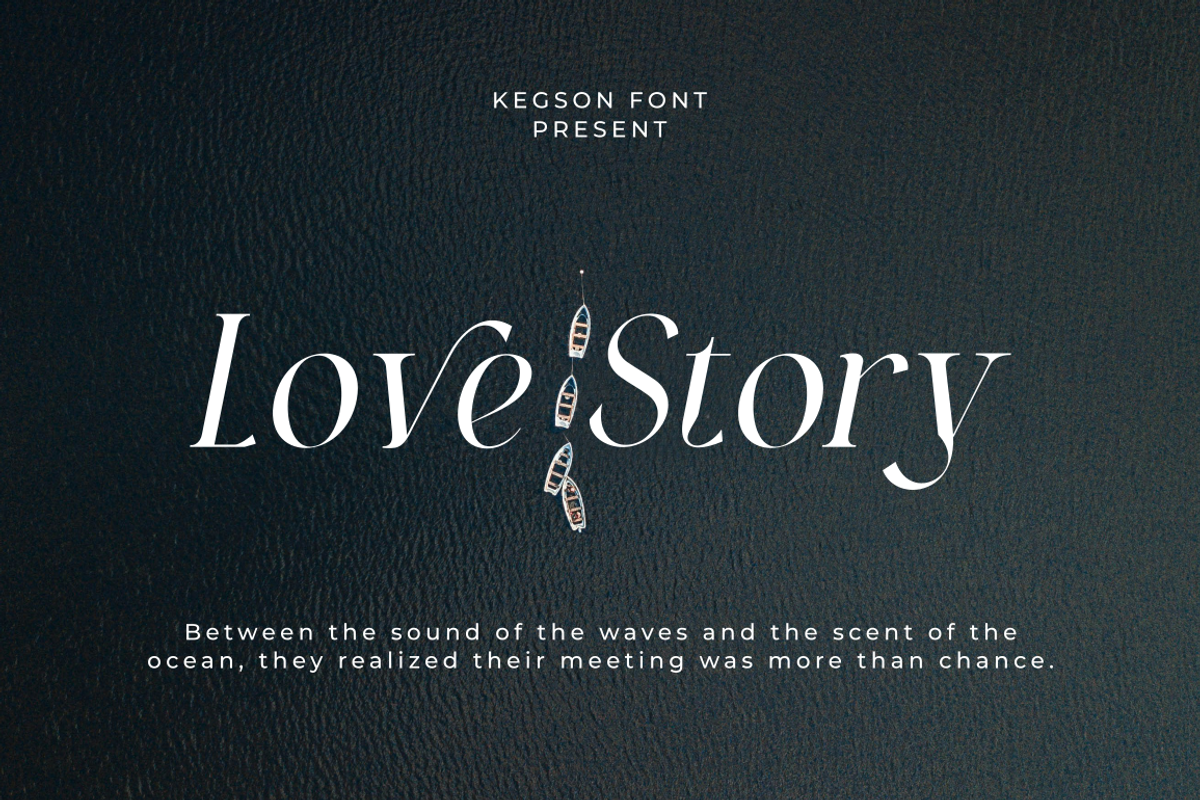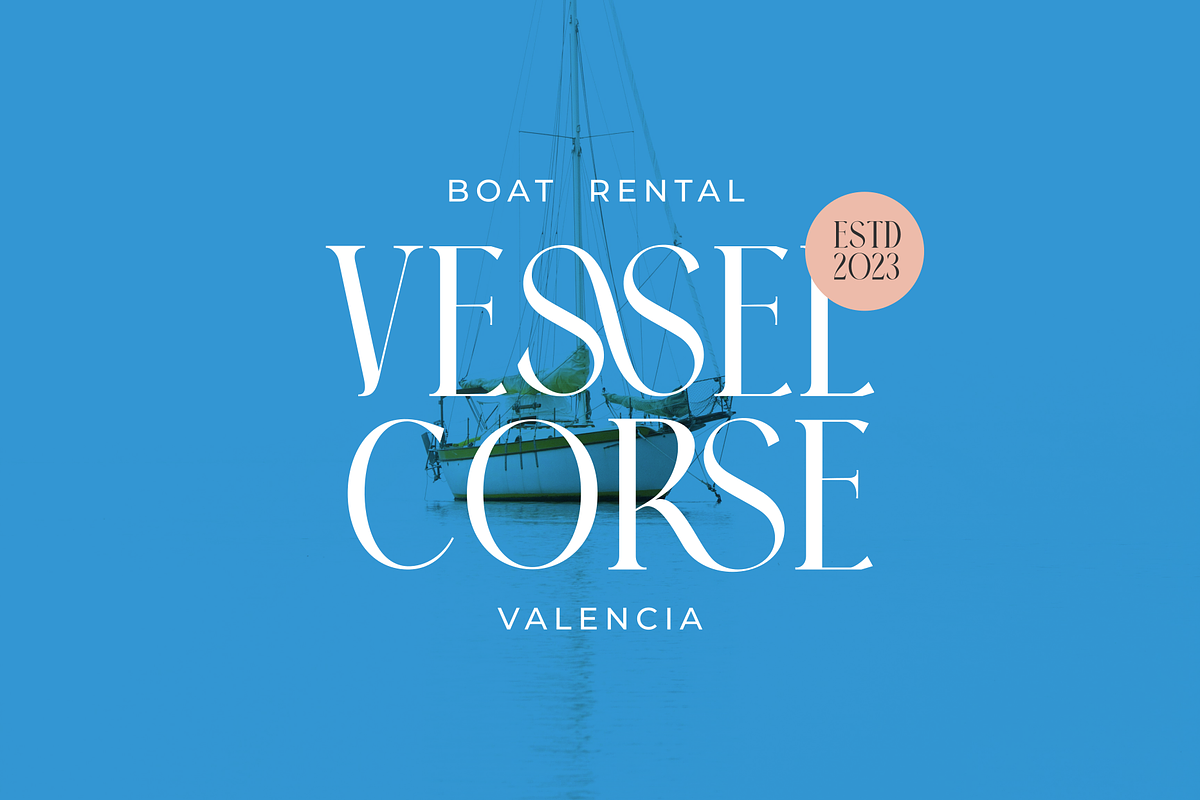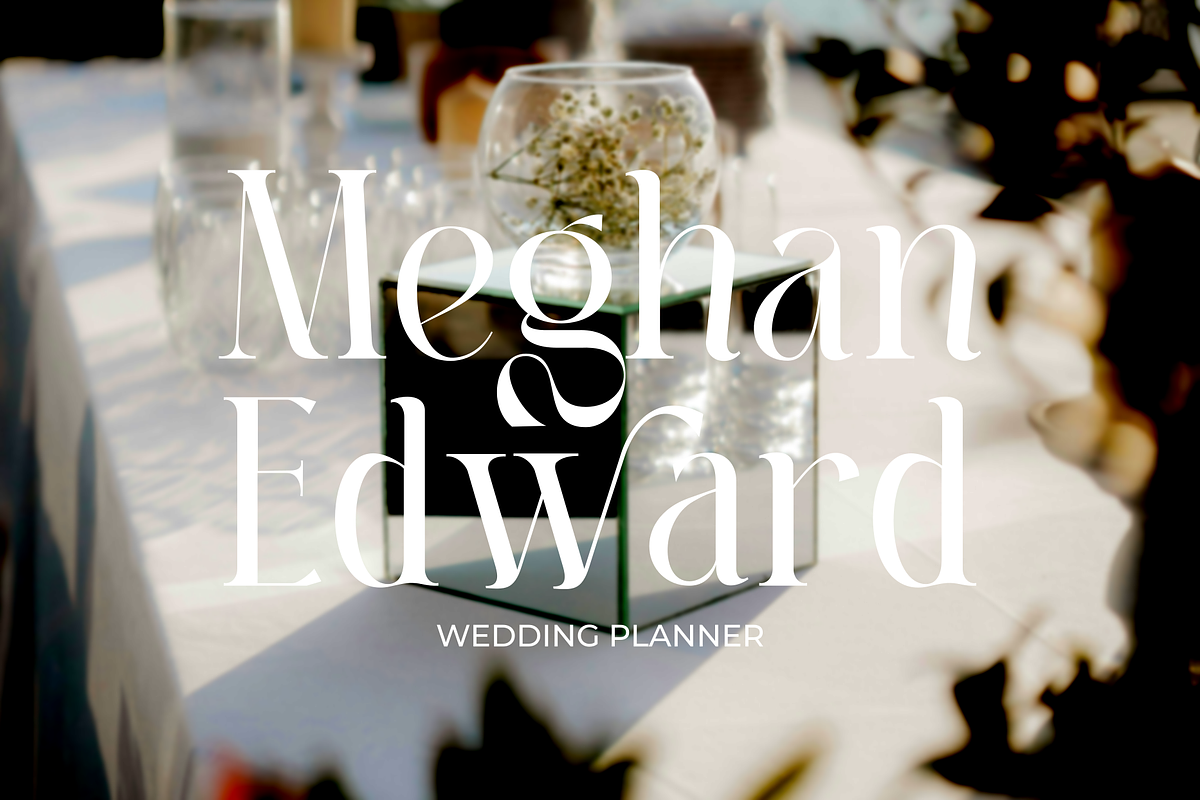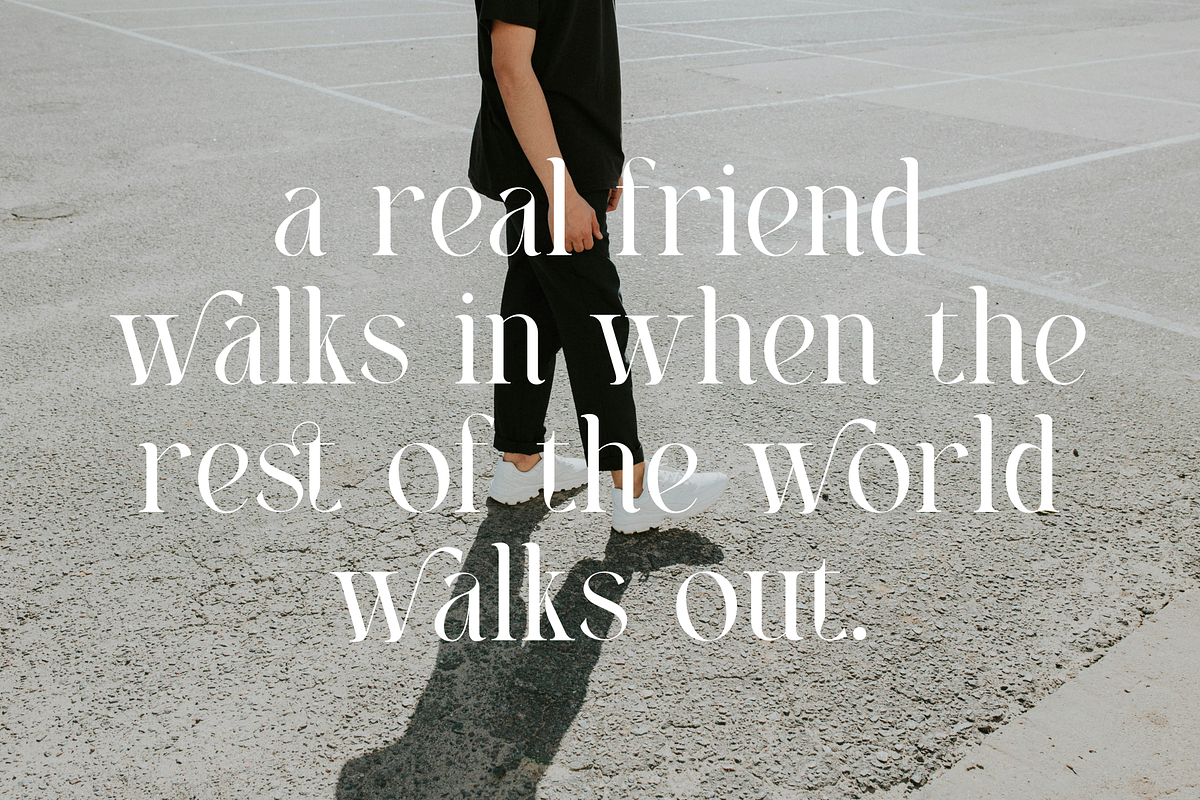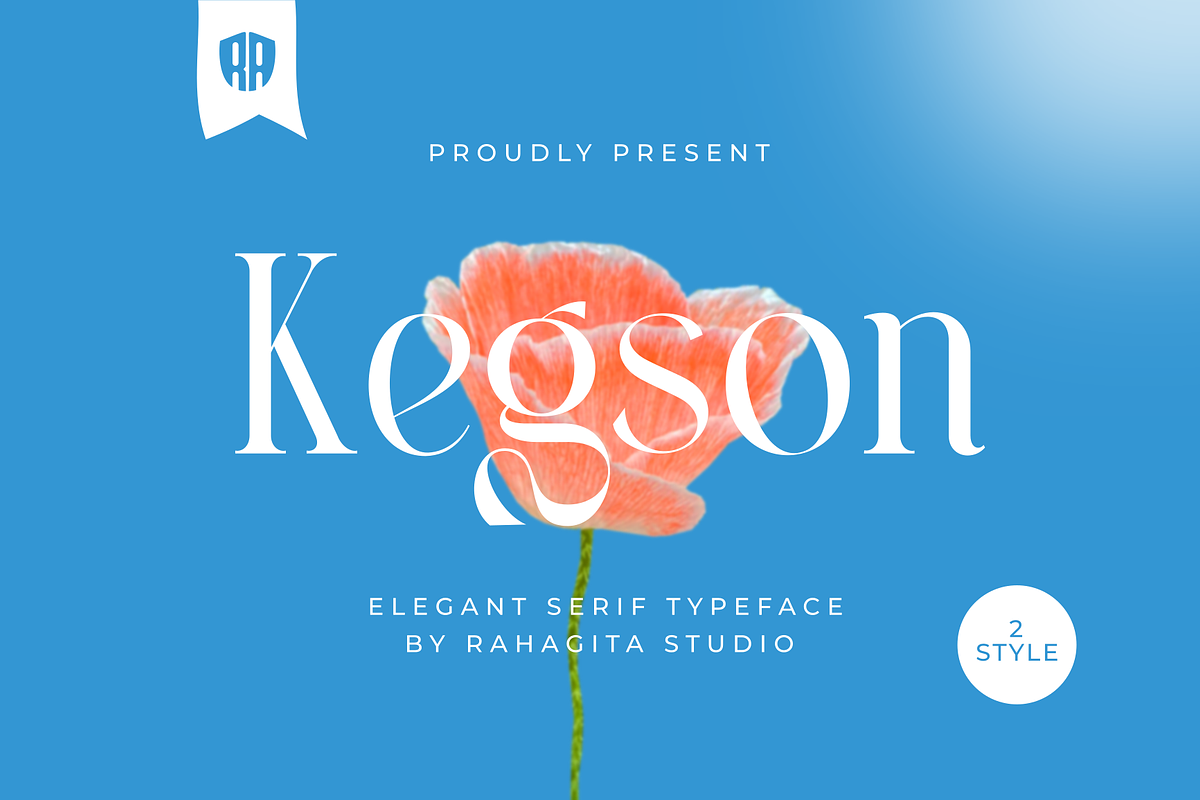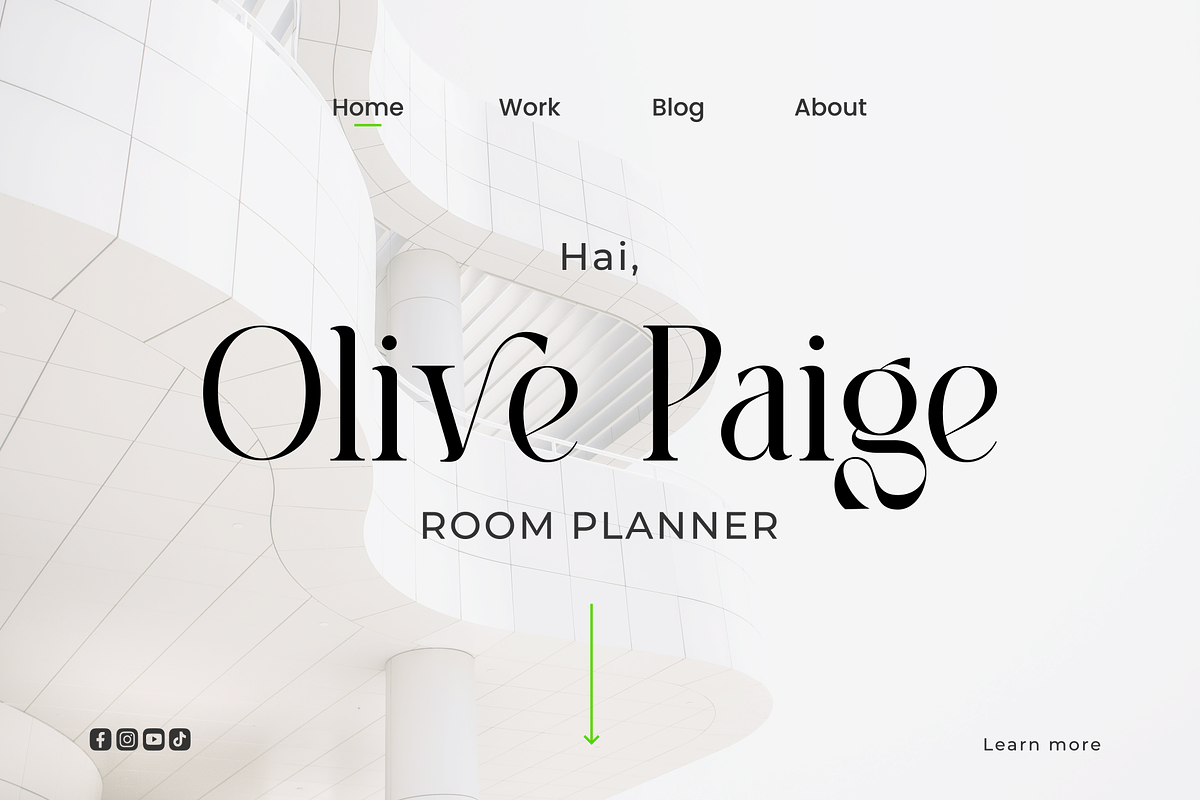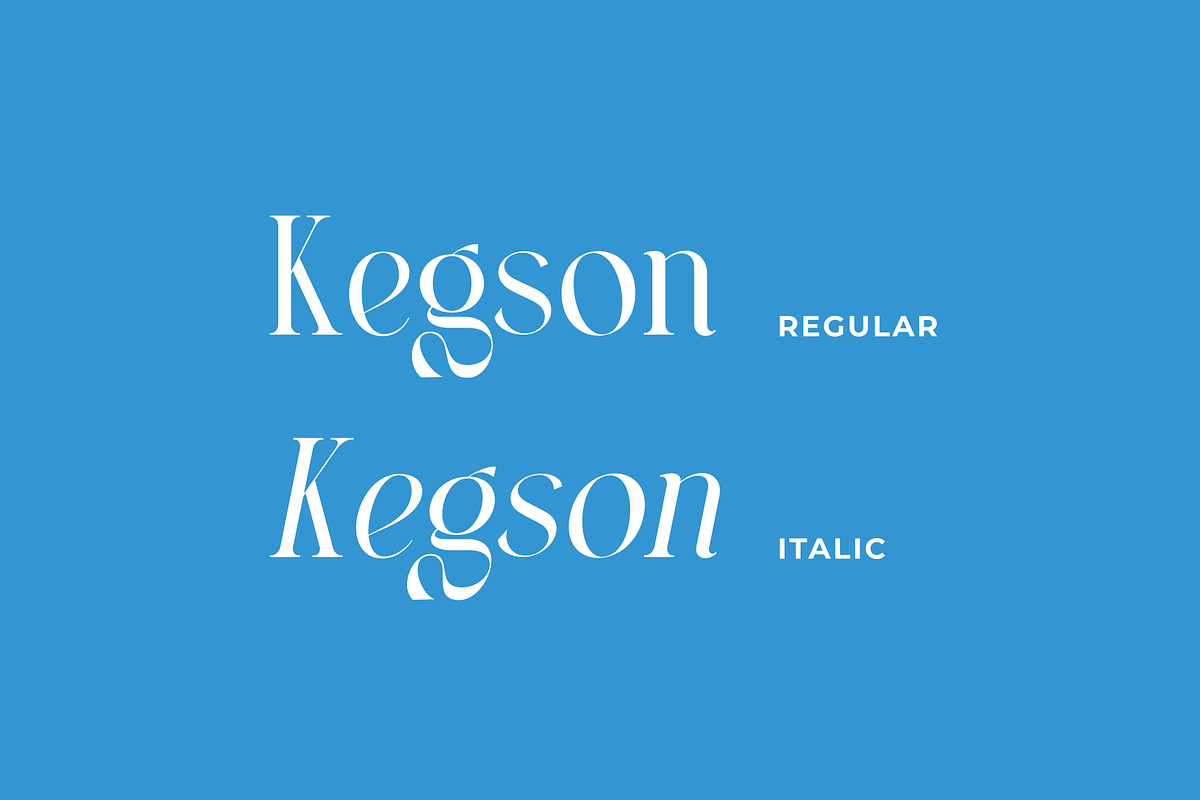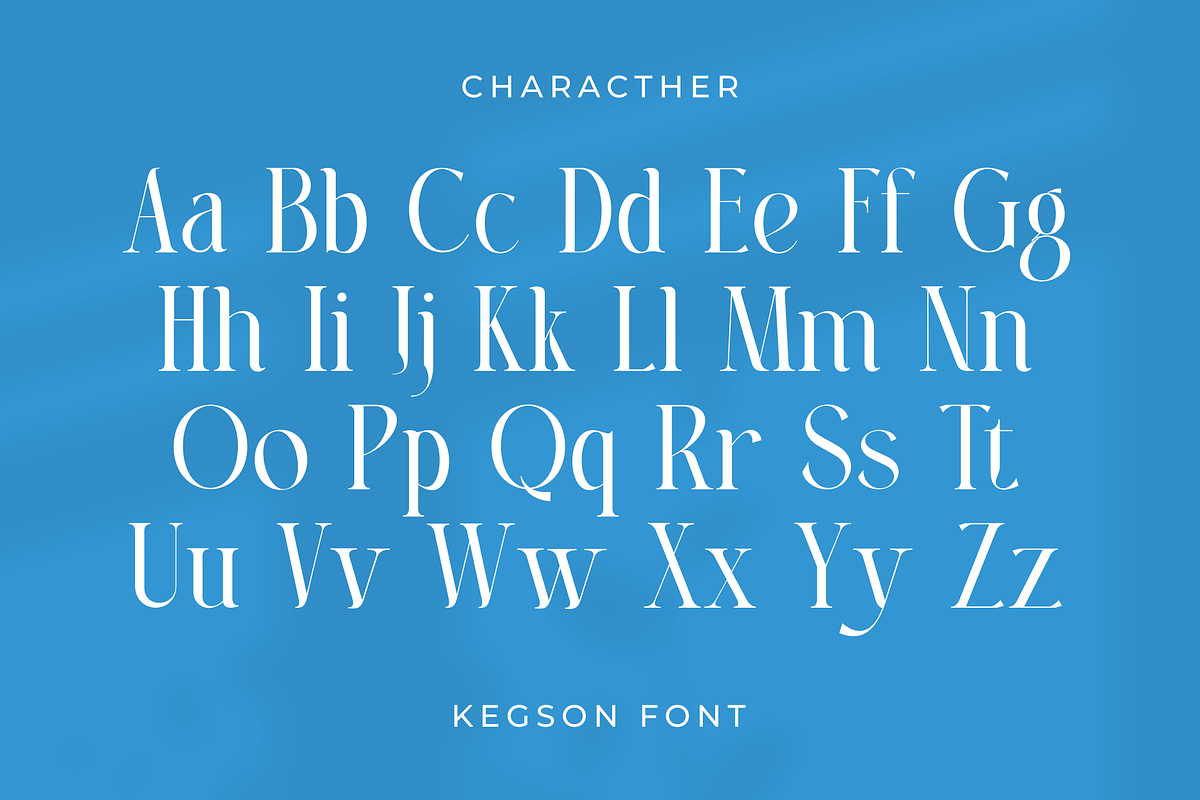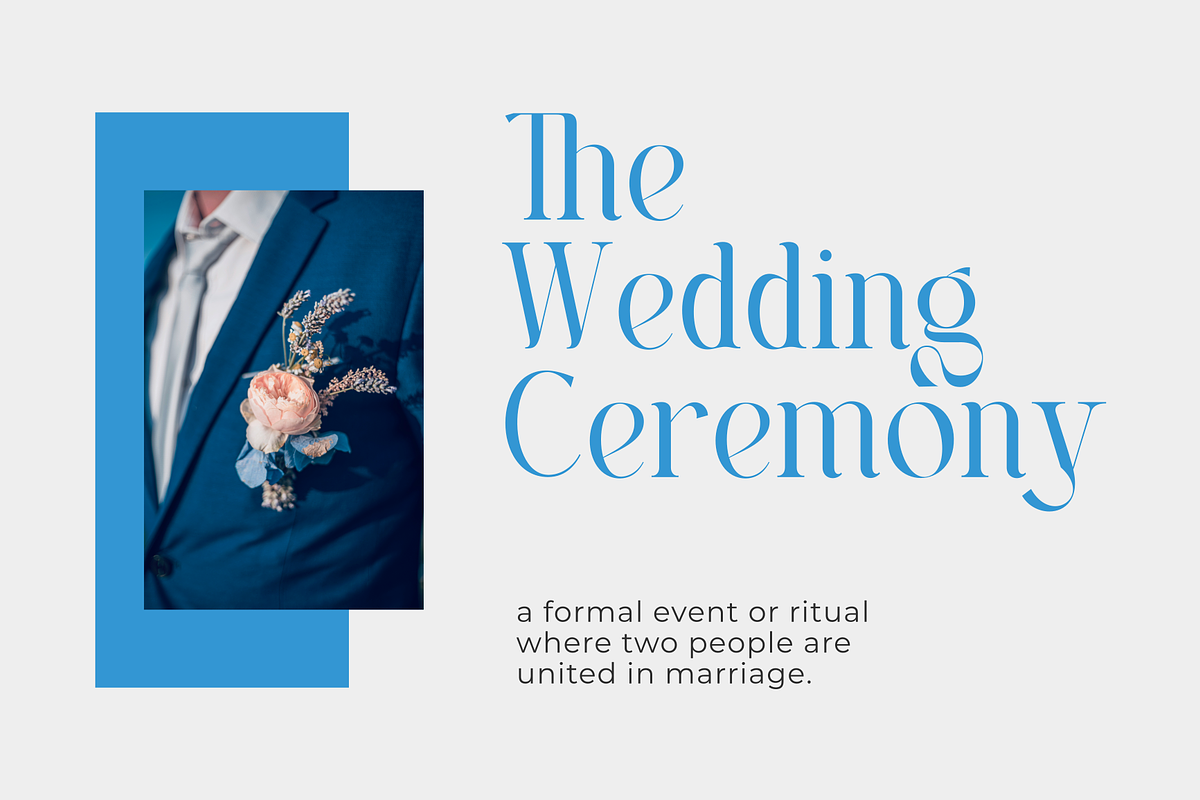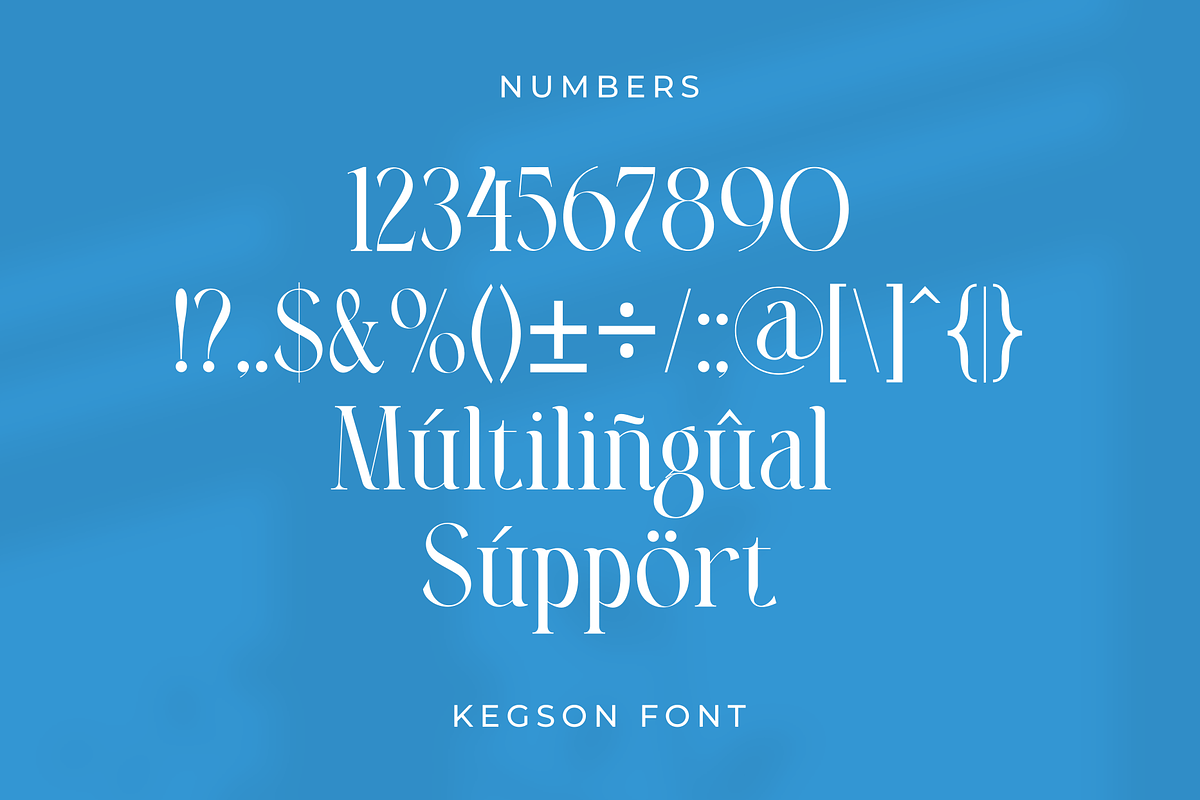
Kegson
Kegson is a sophisticated elegant serif typeface designed to convey modern beauty and timeless charm. With two styles (Regular & Italic), refined contrast, and graceful curves, it’s perfect for creating high-end designs with a touch of class. This typeface includes alternates, ligatures, and multilingual support, making it highly versatile for a wide range of creative applications. Ideal for wedding invitations, luxury branding, editorial design, packaging, and modern logos, Kegson brings refinement and artistic flair to every project.